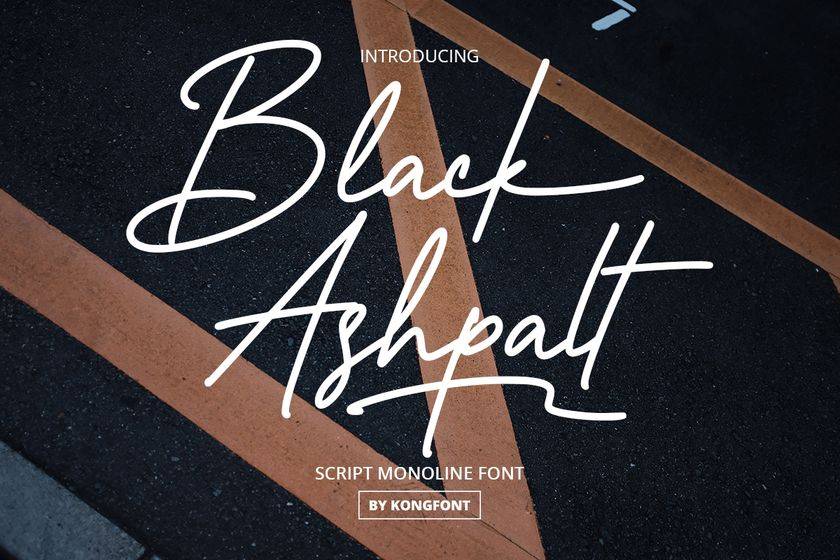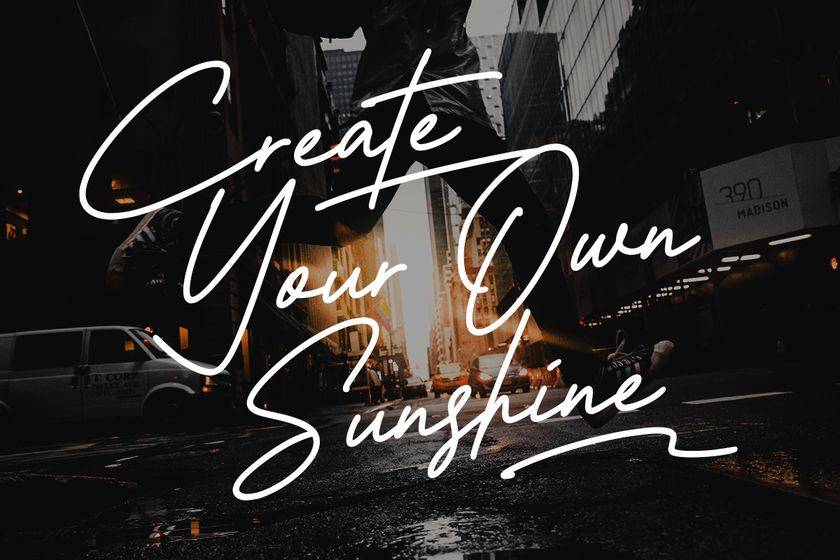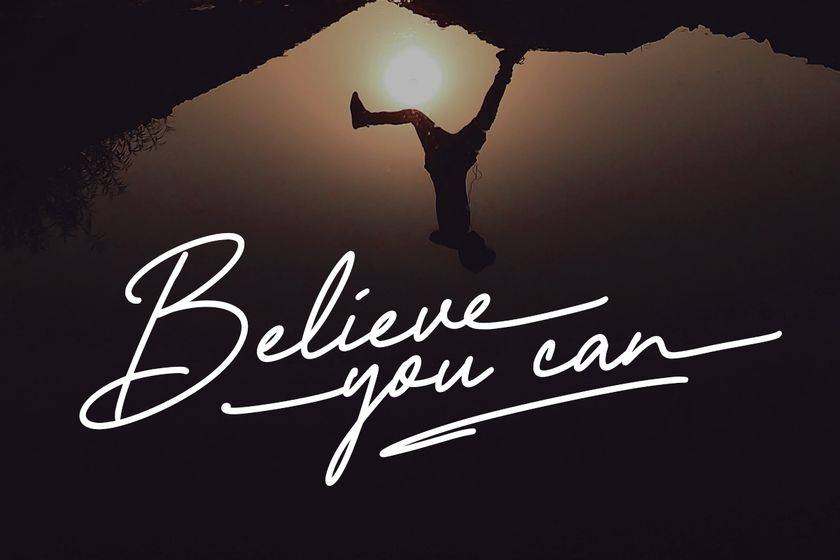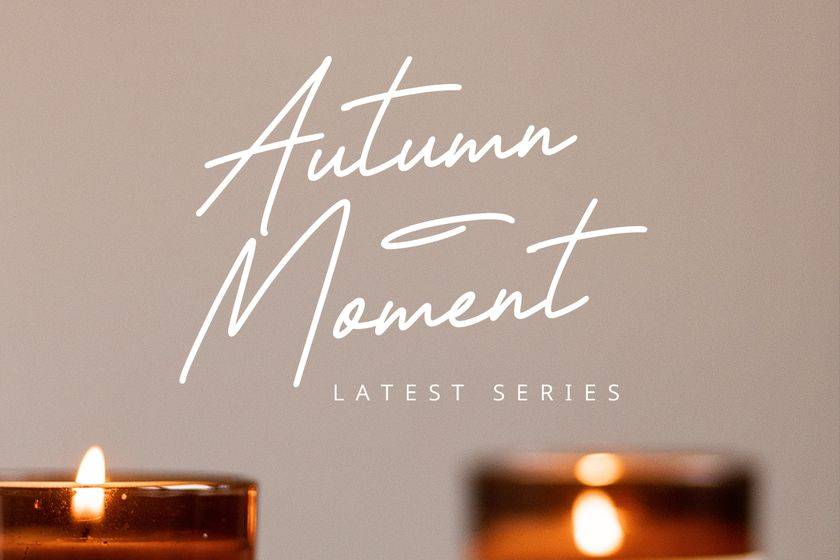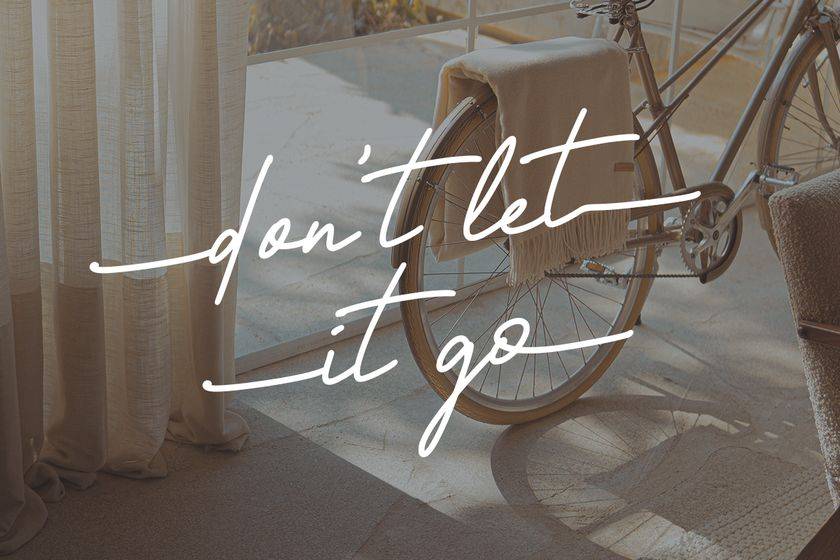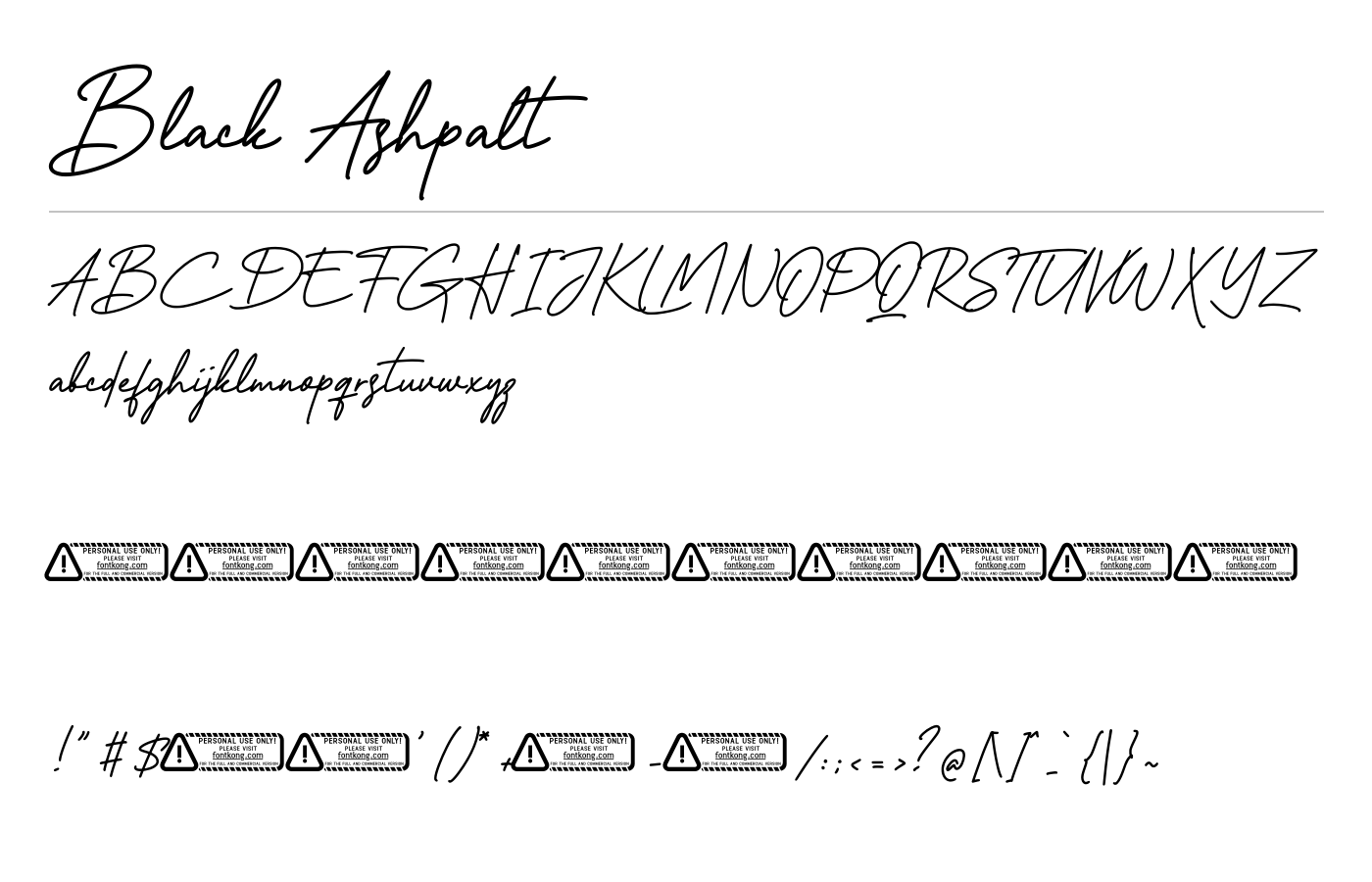
Black Ashpalt is a delicate, handwritten script font with a light, airy feel and slender, flowing strokes that evoke a sense of elegance and personal touch. Its tall x-height and graceful letterforms give it a modern yet casual style, making it ideal for branding, invitations, and creative projects that want to convey sophistication with a relaxed, approachable vibe. This font works well in logos, editorial designs, and digital content where a fine, humanistic handwriting style adds warmth and personality.
Black Ashpalt Font
About Black Ashpalt Font